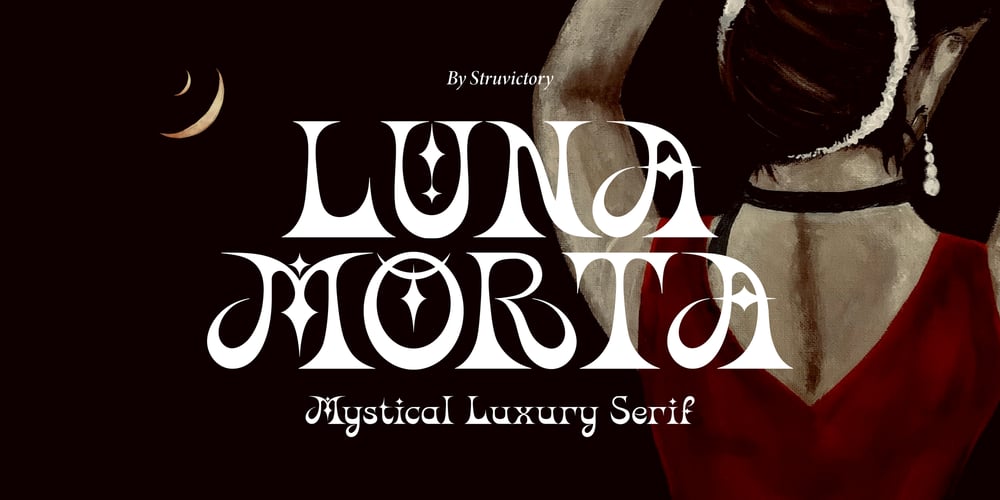
Luna Morta Mystical Font Family was designed by Viktoryia Strukouskaya, Viktor Strukouski and published by Struvictory.art. Luna Morta Mystical contains 1 styles and family package options. Luna Morta font, with its celestial embellishments and intricate serifs, whispers of ancient magic and hidden secrets. Adorned with stars and swirls, perfect for branding mystical products, divination themes, and enigmatic storytelling. This font also lends itself beautifully to fantasy realms, celestial designs, and spiritual literature, tarot cards design casting a spell of intrigue and wonder with every stroke.